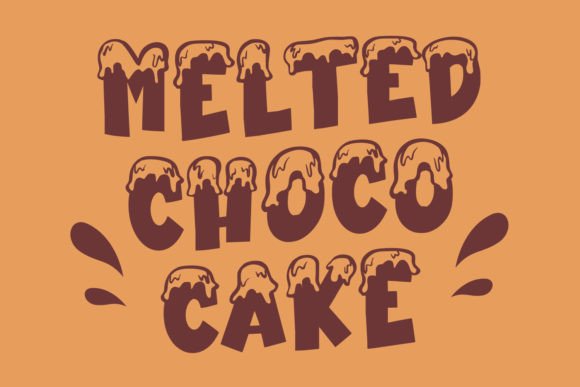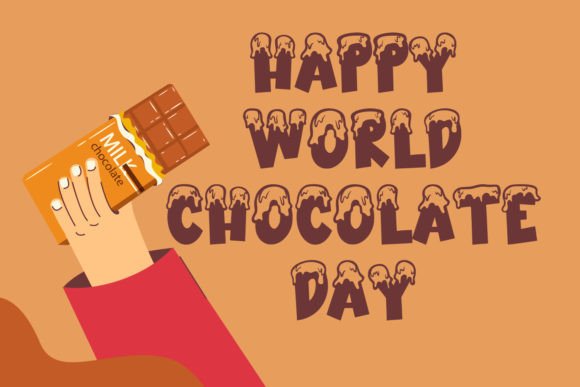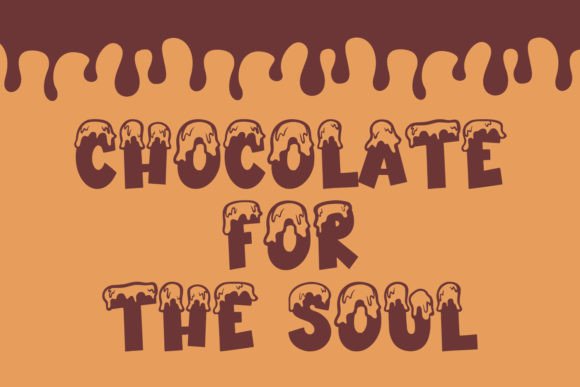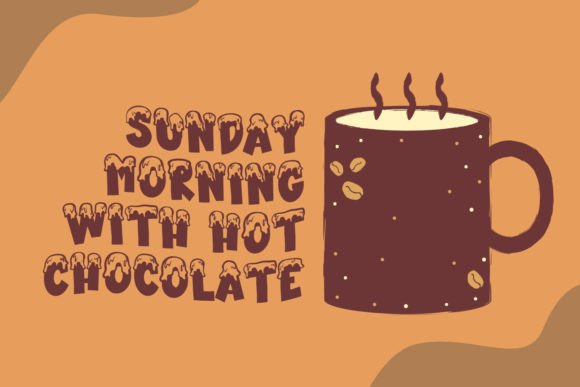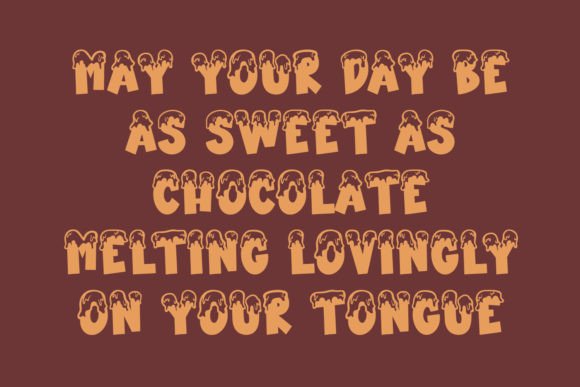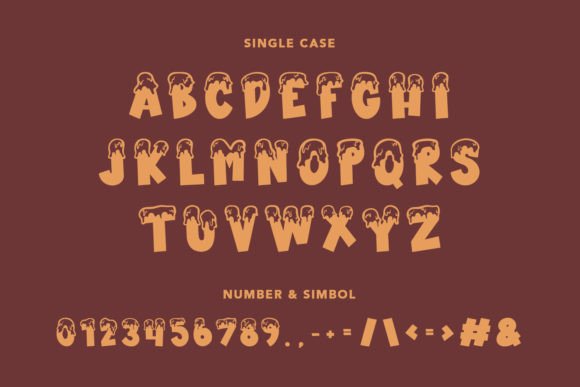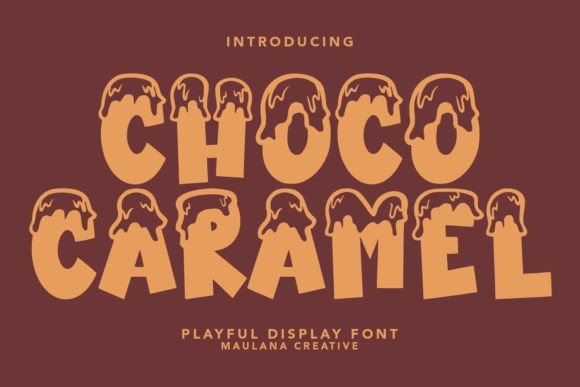
Introducing Choco Caramel Font: The Sweetest Addition to Your Design Toolbox
Are you tired of using the same old fonts in your designs? Do you want to add a touch of whimsy and playfulness to your projects? Look no further than Choco Caramel font, a delectable decorative typeface that’s sure to satisfy your sweet tooth. This mouthwatering font is adorned with luscious, melting chocolate letters that will make your designs stand out from the crowd.
The Charm of Choco Caramel Font
Choco Caramel font is more than just a font – it’s an experience. Imagine sinking your teeth into a rich, velvety chocolate caramel treat, feeling the sweetness and indulgence melt in your mouth. That’s exactly what this font brings to your designs. With its unique and eye-catching design, Choco Caramel font is perfect for adding a deliciously playful touch to dessert menus, branding, and creative projects.
Whether you’re a designer, crafter, or DIY enthusiast, Choco Caramel font is a must-have in your toolkit. This font is ideal for:
- Dessert menus: Add a touch of sweetness to your dessert menus with Choco Caramel font. It’s perfect for bakeries, cafes, and restaurants looking to showcase their sweet treats.
- Branding: Create a memorable brand identity with Choco Caramel font. It’s perfect for food bloggers, influencers, and businesses looking to add a playful touch to their branding.
- Creative projects: Add a touch of whimsy to your creative projects, such as party invitations, greeting cards, and DIY crafts.
Key Features of Choco Caramel Font
So, what makes Choco Caramel font so special? Here are some of its key features:
- Unique design: Choco Caramel font features luscious, melting chocolate letters that are sure to grab attention.
- Decorative: This font is perfect for adding a touch of elegance and sophistication to your designs.
- Playful: Choco Caramel font is playful and fun, making it perfect for designs that require a touch of whimsy.
- Versatile: This font can be used for a variety of design projects, from dessert menus to branding and creative projects.
How to Use Choco Caramel Font
Using Choco Caramel font is easy. Here are some tips to get you started:
- Pair it with neutral colors: Pair Choco Caramel font with neutral colors like black, white, and gray to make it stand out.
- Use it sparingly: Use Choco Caramel font sparingly to add a touch of elegance and sophistication to your designs.
- Experiment with different sizes: Experiment with different sizes and styles to create a unique look.
In conclusion, Choco Caramel font is a must-have for designers and crafters looking to add a touch of sweetness and whimsy to their designs. With its unique design, playful charm, and versatility, this font is perfect for a variety of design projects. So, go ahead and indulge in the sweet world of Choco Caramel font. Your designs will thank you!